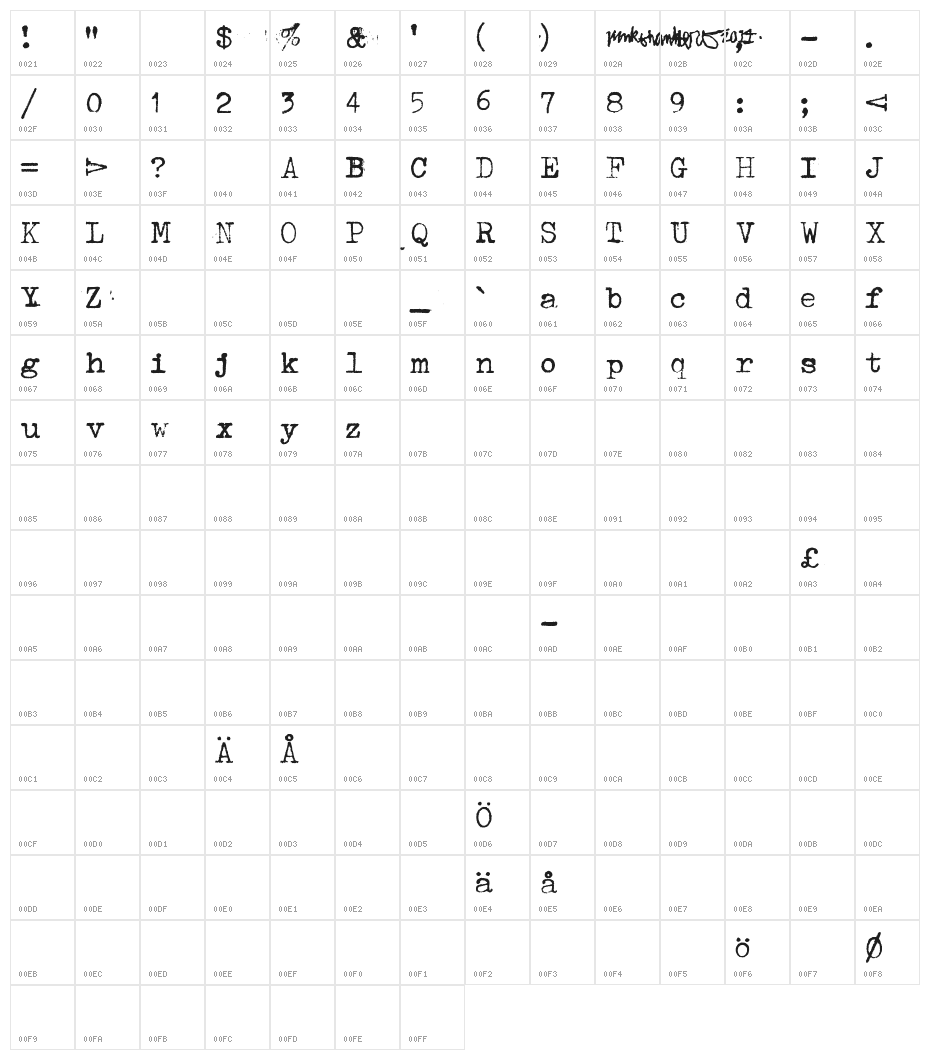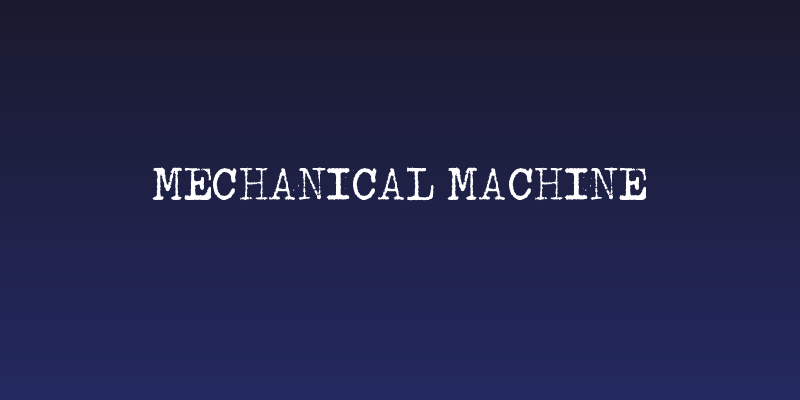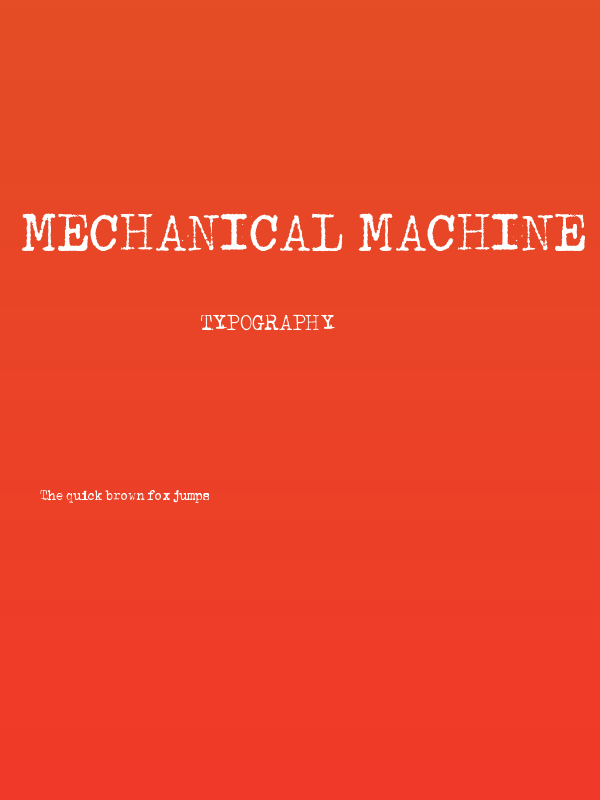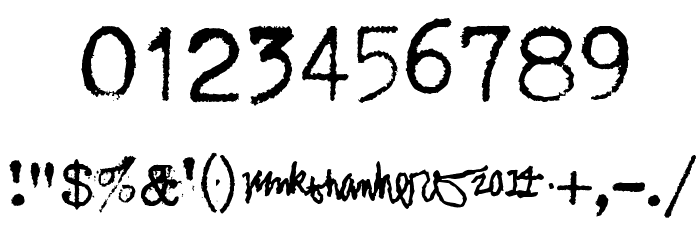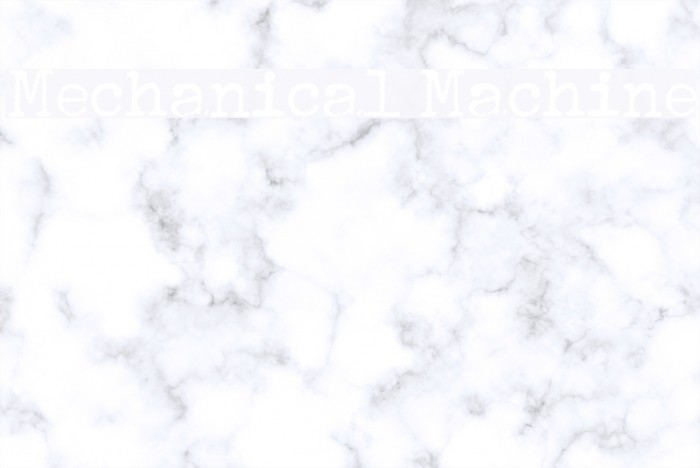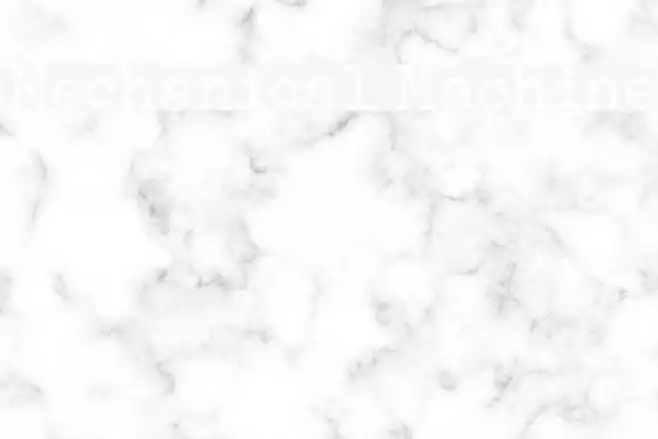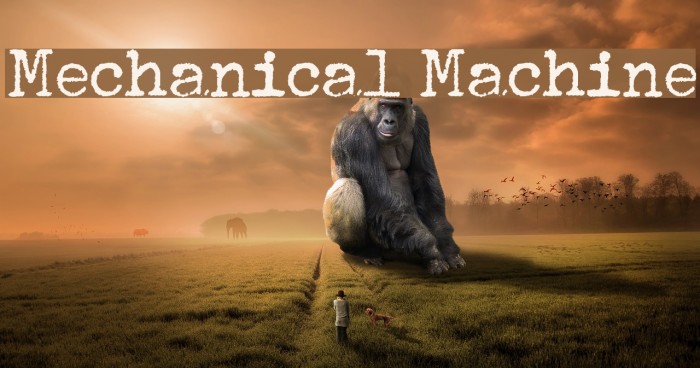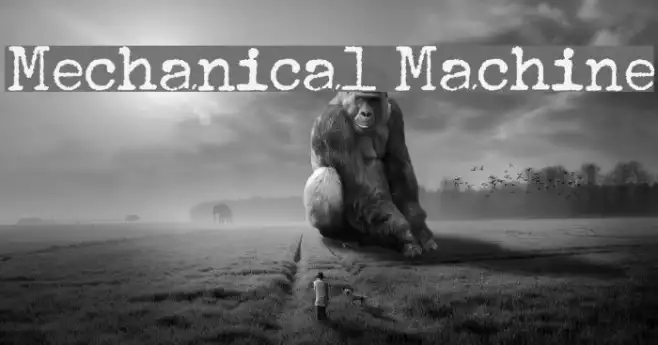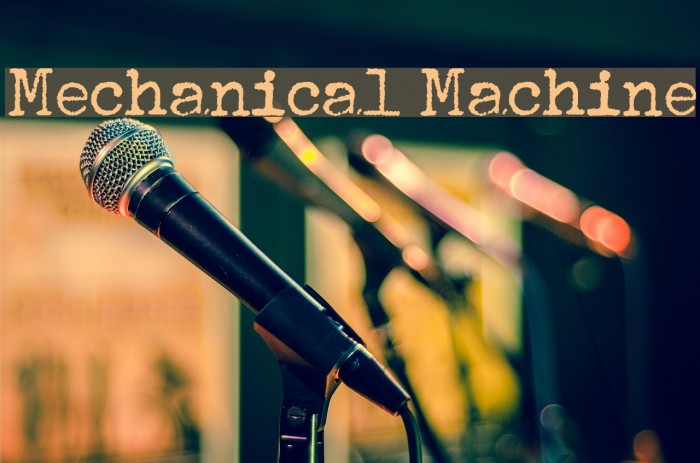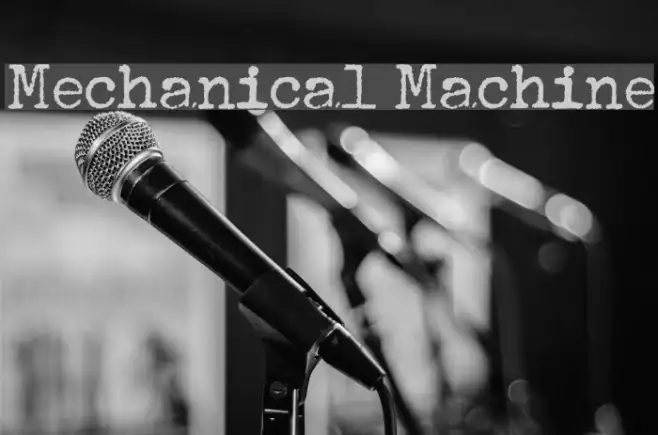
Mechanical Machine Font
Mechanical Machine Description
This font exudes a vintage, mechanical typewriter aesthetic with a distressed, textured appearance. The characters are bold and slightly irregular, giving them a handcrafted feel. The uppercase letters are prominent and sturdy, while the lowercase letters maintain a consistent style with subtle variations in stroke width. Numbers and special characters follow the same rugged design, adding to the overall industrial charm. The font's rough edges and uneven ink distribution suggest a historical or retro vibe, reminiscent of old printing presses or typewriters.
| Overall Style | Vintage |
| Proposed Projects | Ideal for projects requiring a retro or industrial theme, such as vintage posters, historical documents, or branding for artisanal products. |